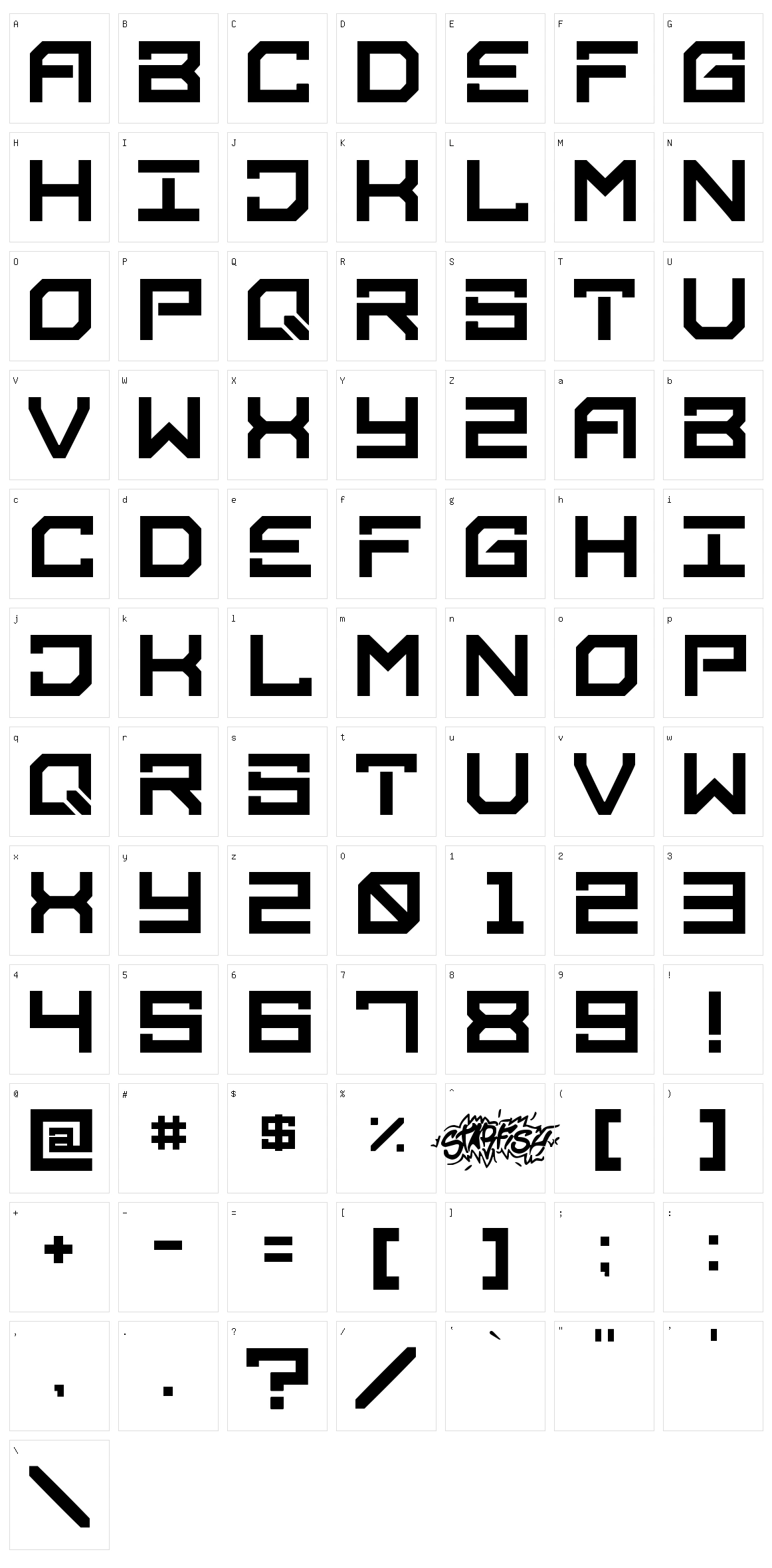
The free font Starfish is carefully designed by StarFish Designs, showcasing a thoughtful balance of creativity and usability and falls under the Square font style. When you download the ZIP file, it contains only 6.33 KB of font files, making it lightweight and quick to download. Please review the license details below to understand permitted usage and distribution rights. If license information is not available, we recommend using this font for personal projects only or contacting the author directly for commercial usage permissions.